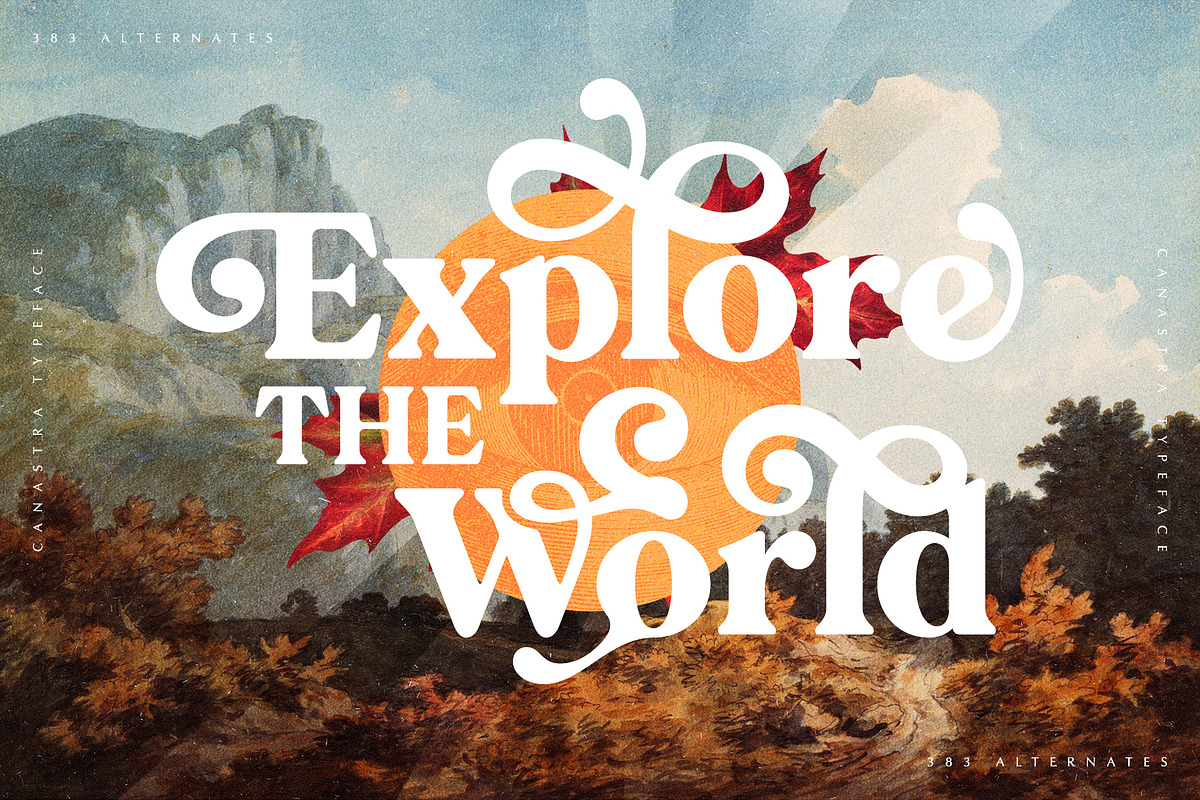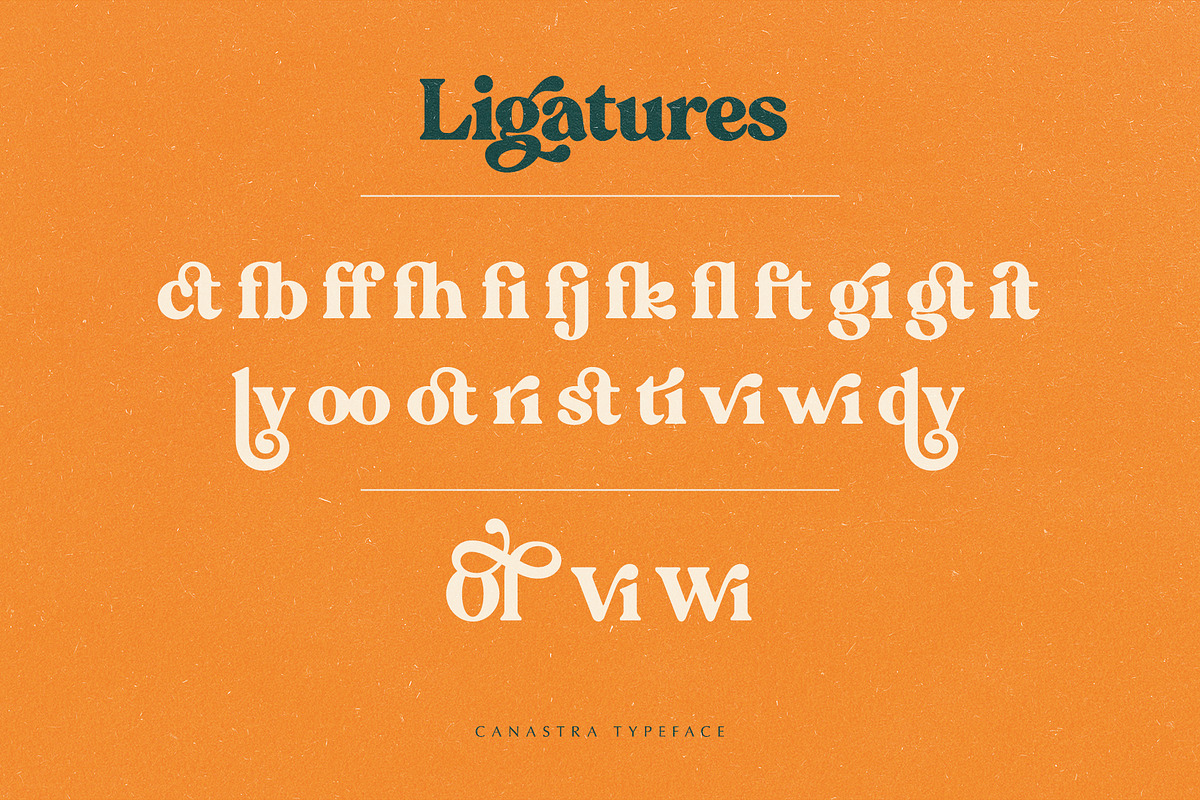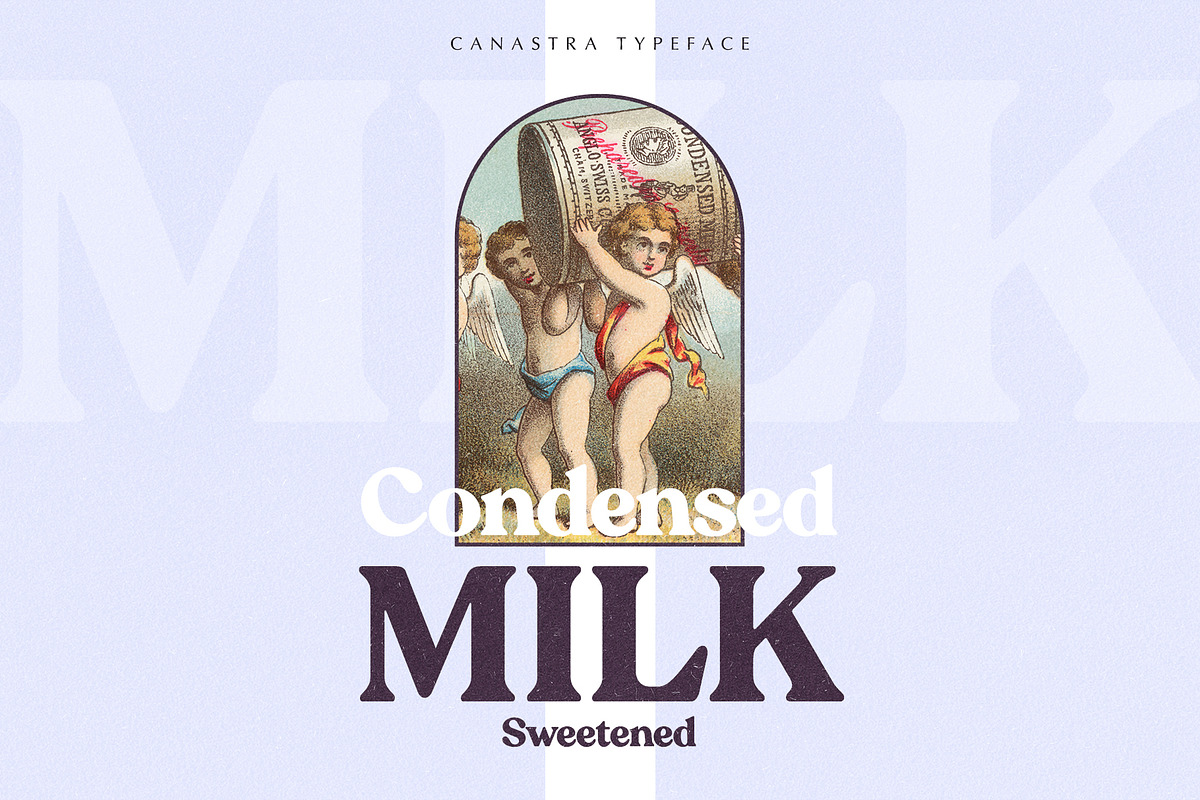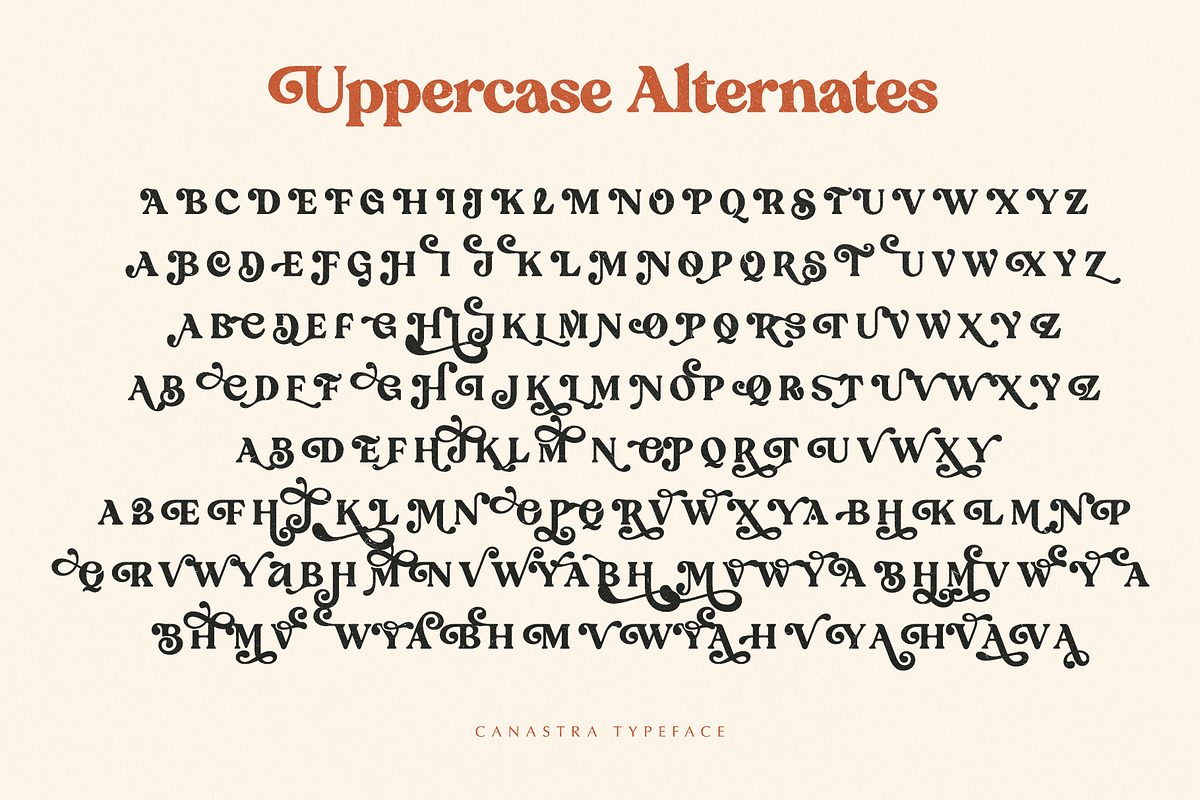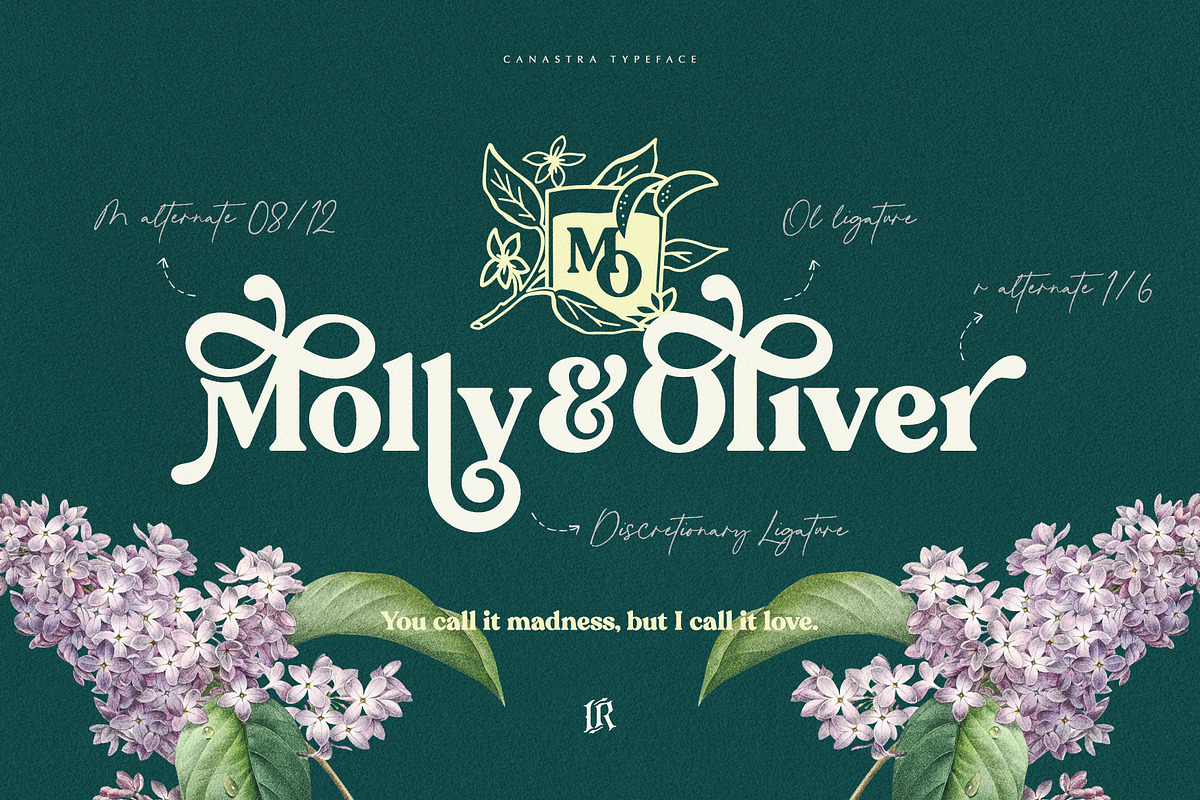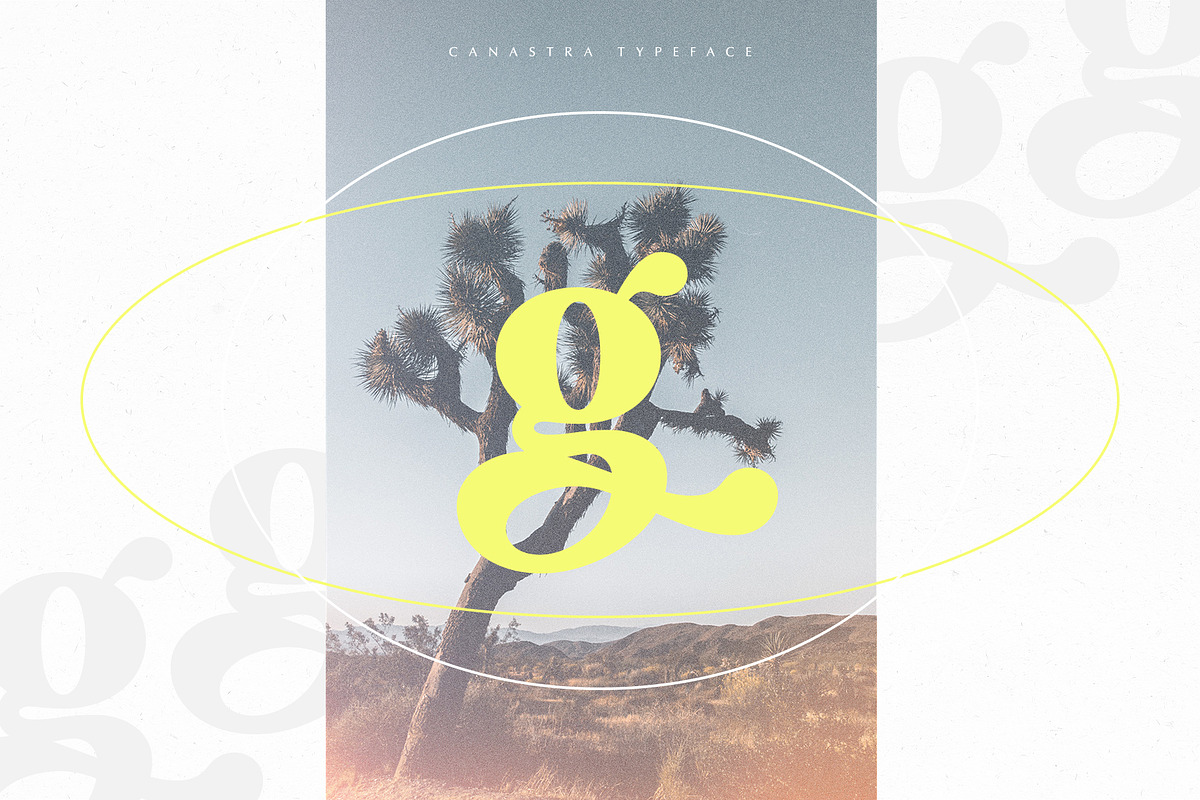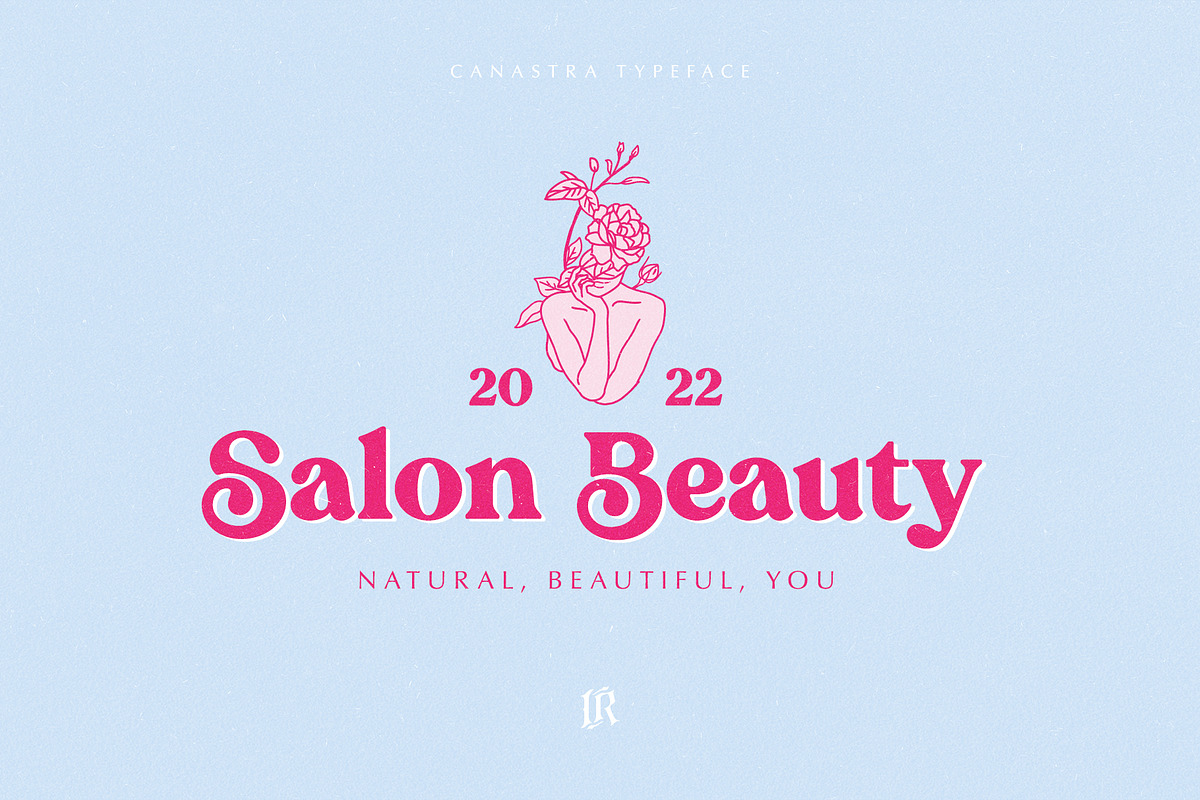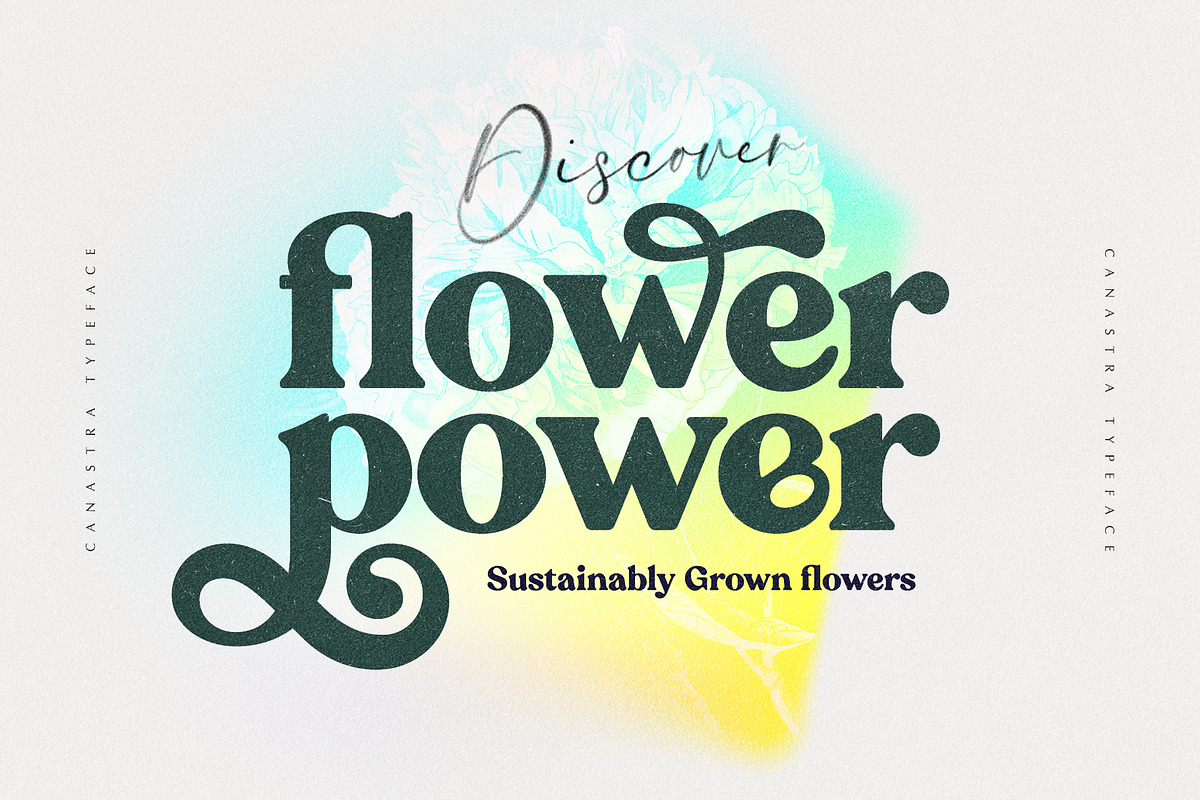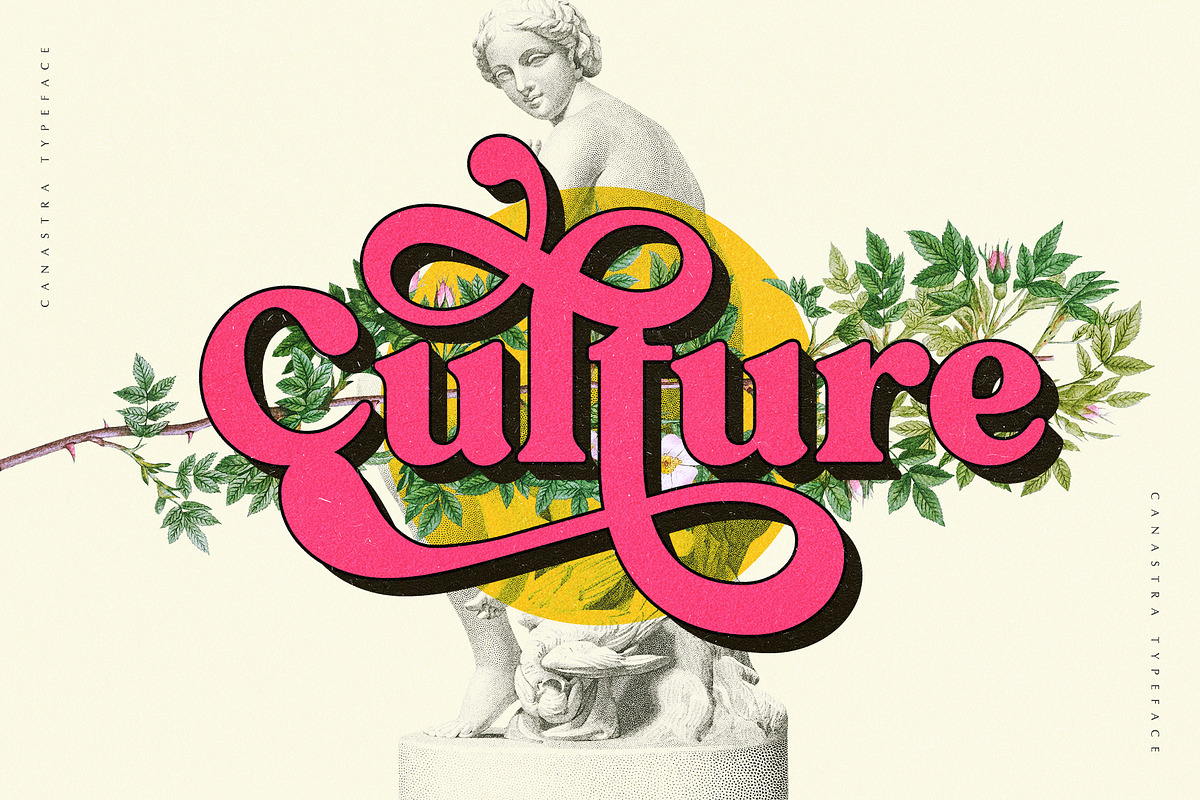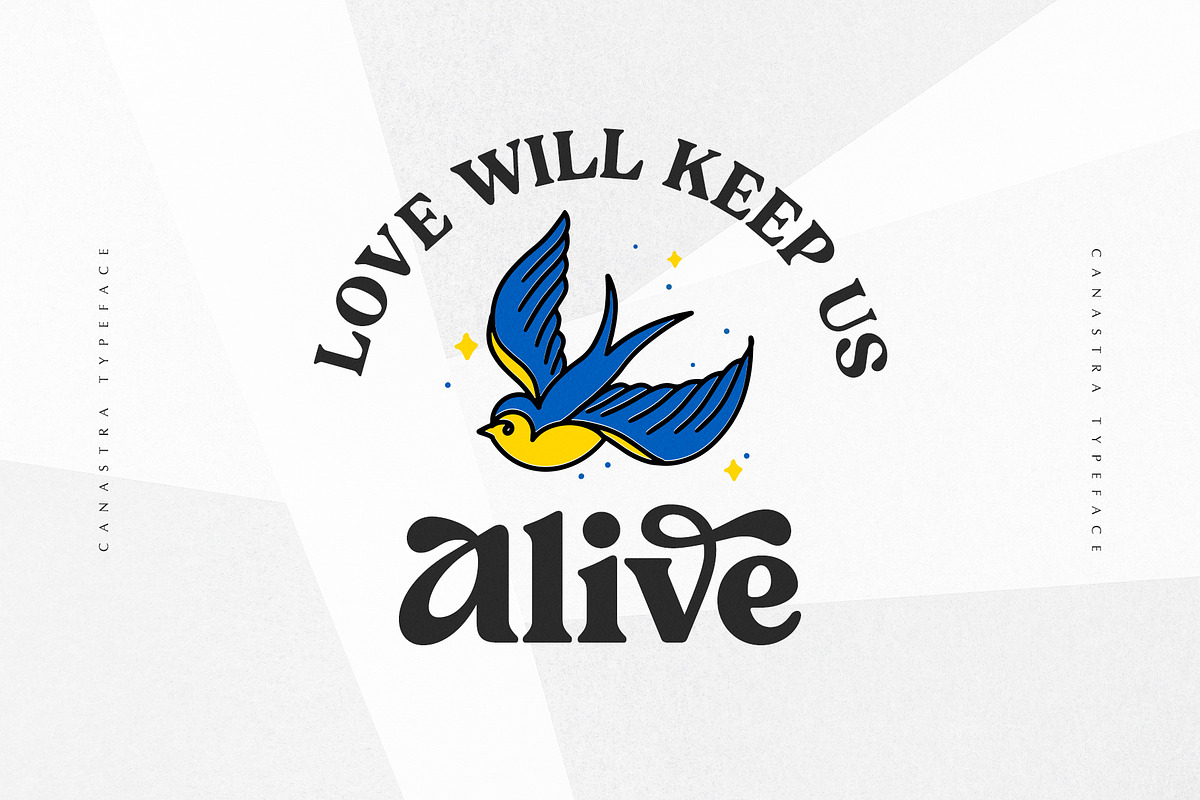
Canastra - Retro Serif
Canastra Typeface is a stylish vintage font inspired by 70’s groovy vibe with a touch of modernity. It looks amazing at display sizes and is easily readable in text size. Canastra Typeface comes with access to your OpenType features, selection of 383 alternate glyphs and ligatures. There are two versions of this font : REGULAR and ITALIC.
Canastra Typeface is a serif font made mainly for headlines, titles, and other short texts and is well-suited for advertising, vintage mood board, branding, logotypes, packaging, titles, editorial design and modern and vintage design.